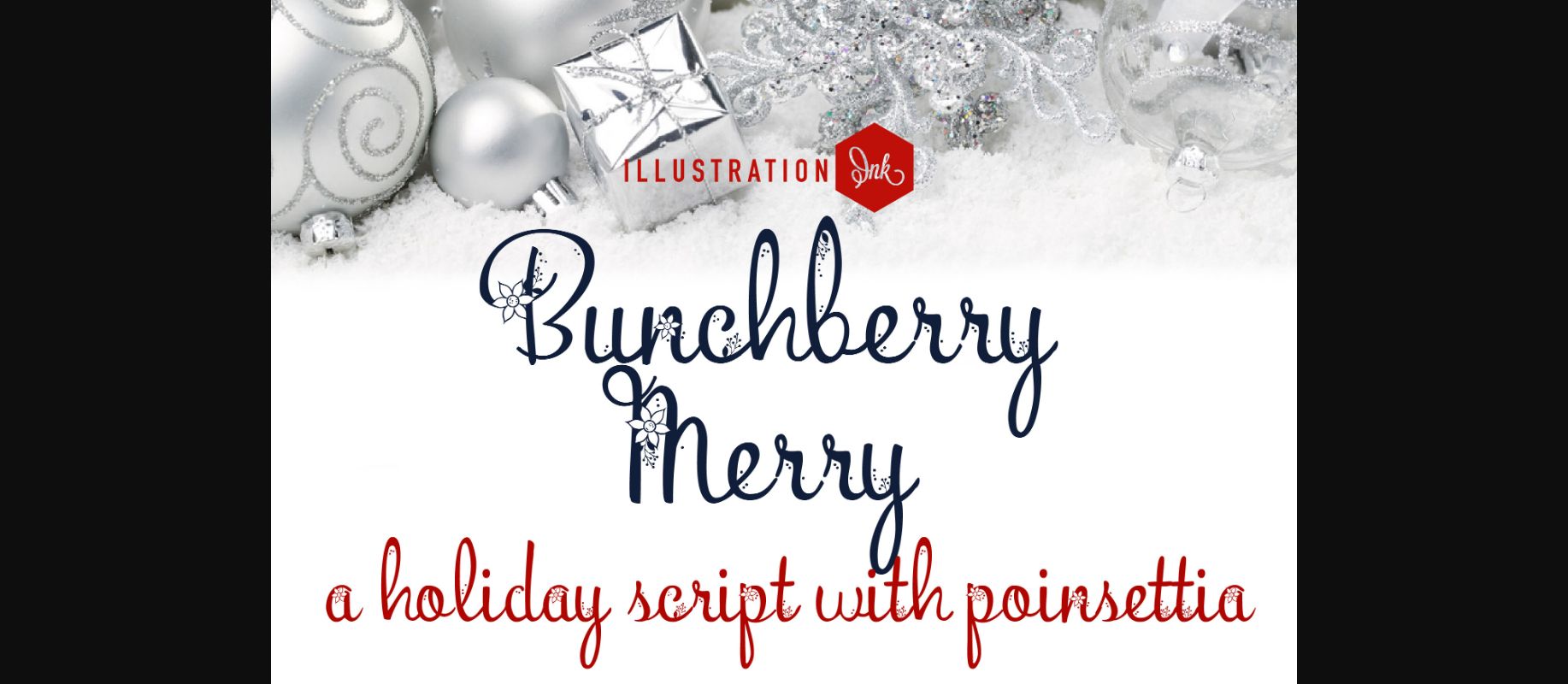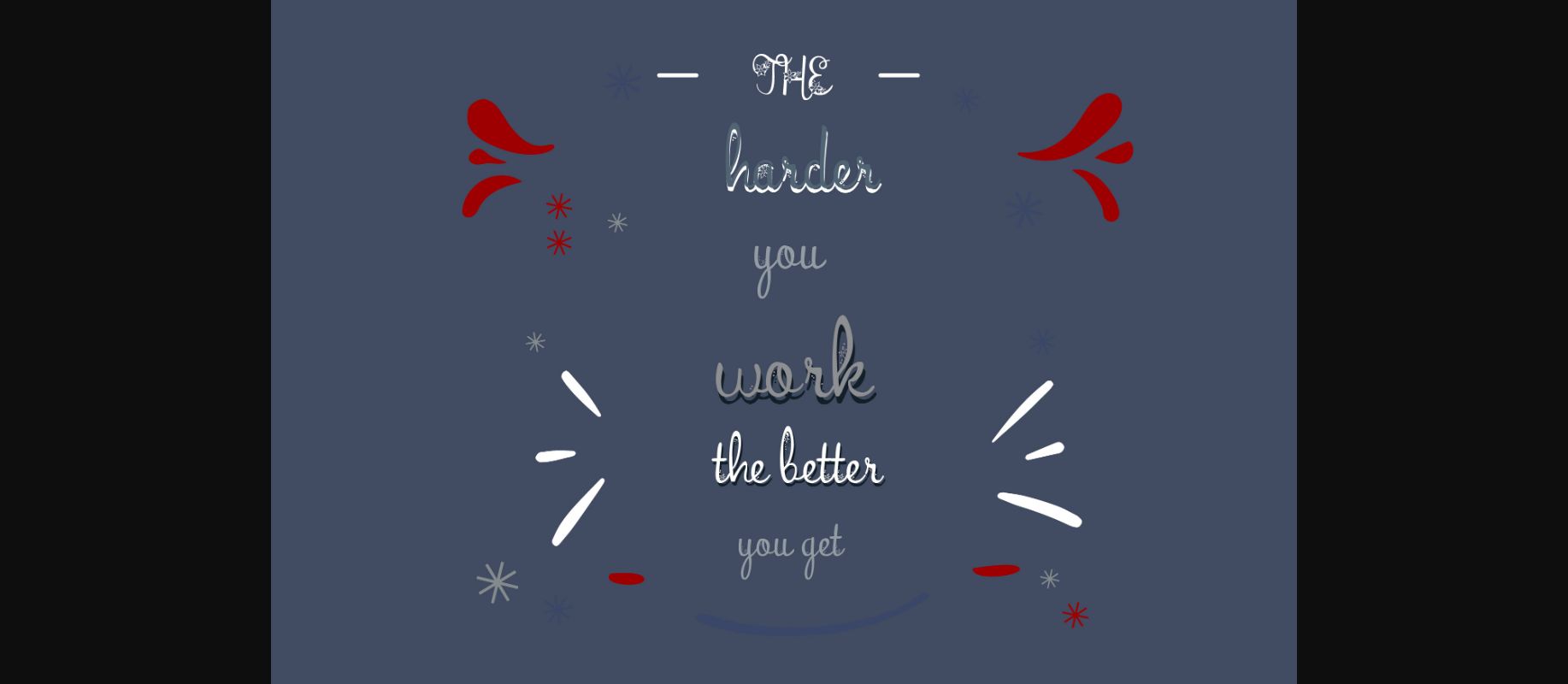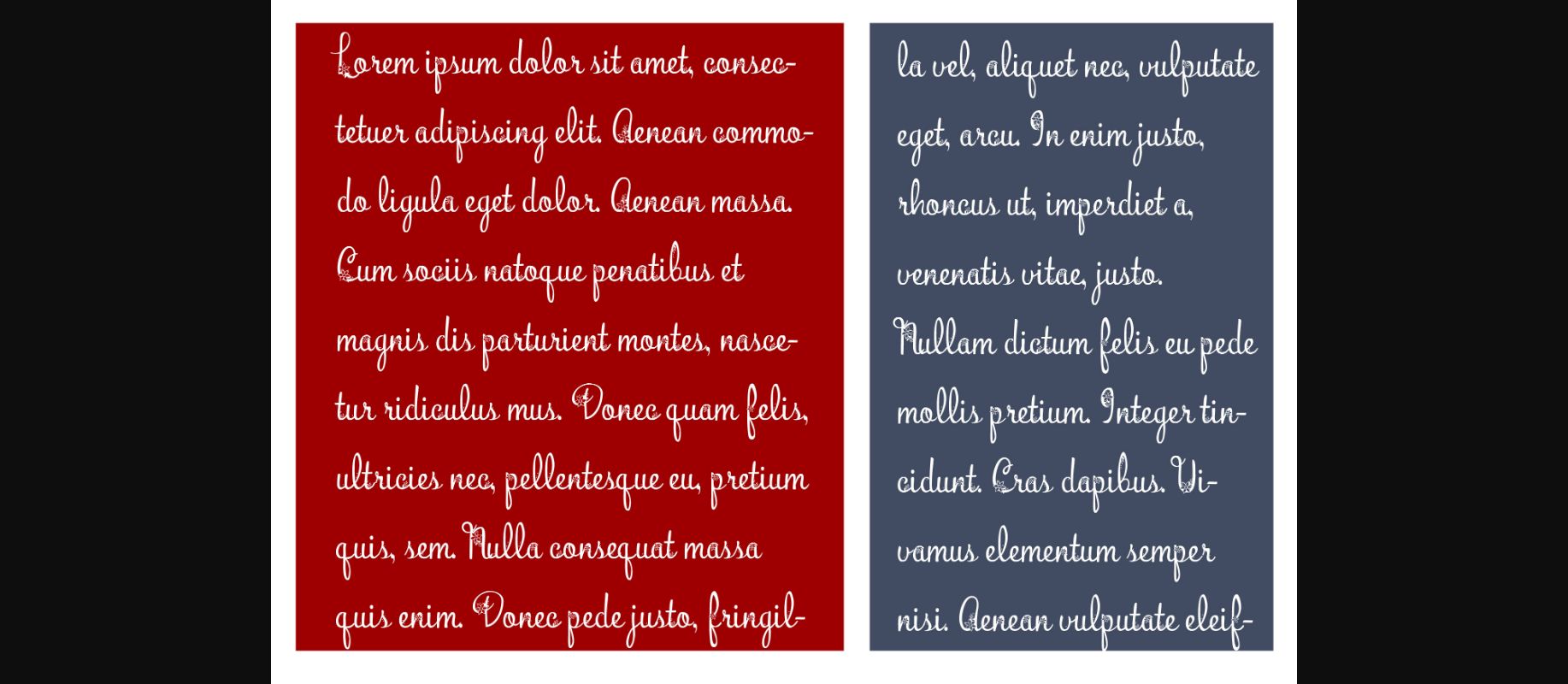
About Bunchberry Merry Font
This hand-crafted font features a beautiful hand-written script with pretty Christmas florals and berries on the uppercase and much of the lowercase.
A hand-crafted font is a font that is designed to look like it was written by hand. It is often used for invitations, greeting cards, and other items. Handwritten fonts can be either formal or informal, and they can be used for a variety of purposes.
Handwritten fonts can be a great way to add a casual touch to your designs. They can also be used to create a sense of nostalgia or whimsy. However, it is important to choose a handwritten font that is appropriate for the project you are working on. A formal handwritten font may not be appropriate for a casual invitation, while an informal handwritten font may not be appropriate for a corporate document.
A hand-crafted font is a font that is designed to look like it was written by hand. It is often used for invitations, greeting cards, and other items. Handwritten fonts can be either formal or informal, and they can be used for a variety of purposes.
Handwritten fonts can be a great way to add a casual touch to your designs. They can also be used to create a sense of nostalgia or whimsy. However, it is important to choose a handwritten font that is appropriate for the project you are working on. A formal handwritten font may not be appropriate for a casual invitation, while an informal handwritten font may not be appropriate for a corporate document.